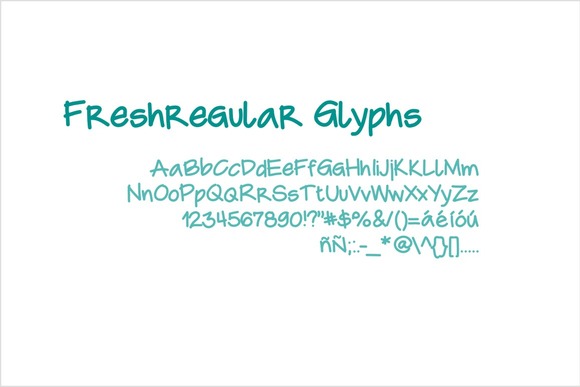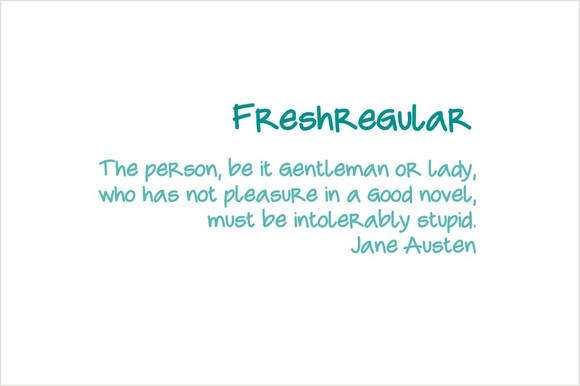
Fresh Regular Font
db-ku.com - Script & Handwritten -- This fresh handwriting font is a little irregular and not so perfect, just like our own handwriting!